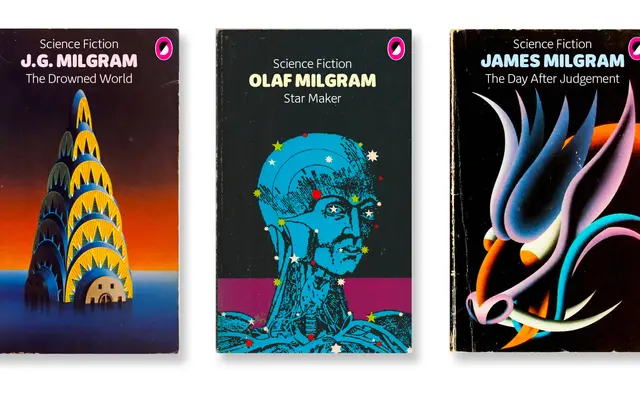
Milgram specimen from Signal
A humanist rounded sans with low contrast and open apertures, drawing on 1960s references from Frankfurter to obscure dry-transfer lettering.
The family runs six weights from Light to Black, each with a matching italic, covering over 140 languages including Vietnamese. Light weights carry a faint technical precision, described by the foundry as engraved-on-glass, while the Black sits squat and exuberant. Open counters and minimal stroke contrast push readability even at heavier settings, making it functional well beyond its obvious nostalgic appeal.
Milgram merges humanist sans construction with rounded terminals, placing it in a subcategory adjacent to faces like Frankfurter and VAG Rundschrift. The foundry describes it explicitly as a hybrid of humanist and rounded sans intentions.